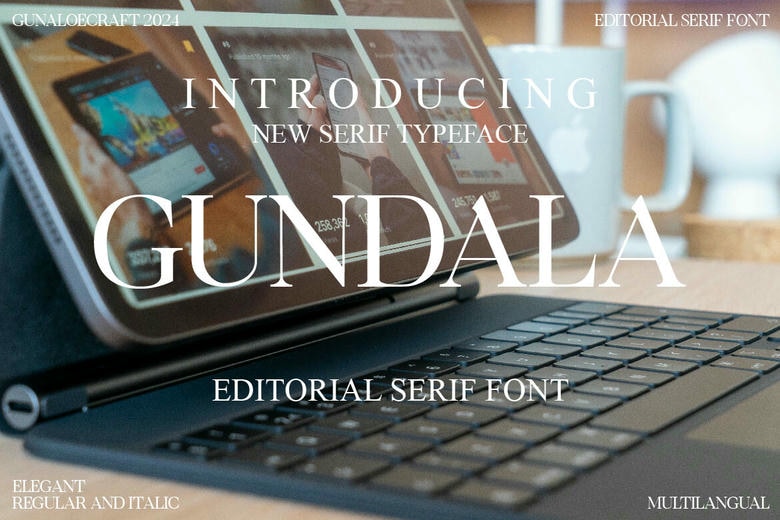
Gundala Font
Gundala is a fictional relatively new contemporary serif typeface developed by Gunaloecraft. This clean and stylish typeface has been created for giving the necessary zest to a wide range of designs including logos, typography, quotations, and more crucially the magazine or book covers. This isn’t the end of its use in versatility.
With commercial use in mind, the Gundala font stands out in improving the look of headers on websites, bring individuality to brands, making packaging designs look even better, and adding an elegant touch to the social media posts, flyers and posters, and the Web.
Gundala Serif Font